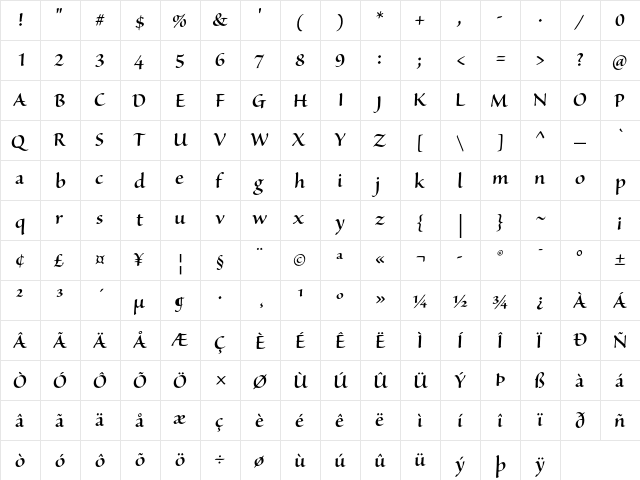
Sanvito Pro Semibold Display
| Designer | Robert Slimbach |
Design Context for Sanvito Pro Typeface
Sanvito Pro is built around its visual character rather than neutral utility — its distinctive forms are designed to make an impression at display sizes. The heavy weight commands attention and anchors typographic hierarchies.
Font Pairing: Pair with a clean neutral sans-serif for body copy to let Sanvito Pro's character lead without overwhelming the composition.
Pro Tip: Treat Sanvito Pro as the centrepiece of your typographic hierarchy. One strong heading set in a decorative face can carry an entire layout.